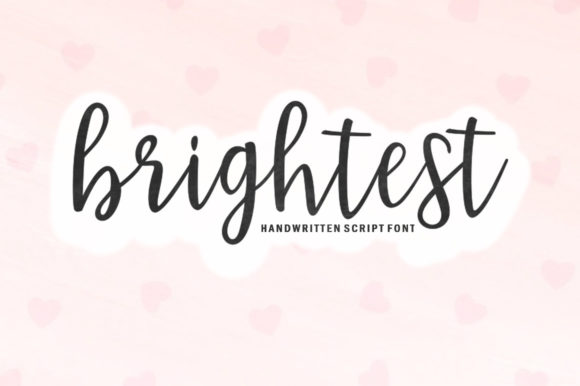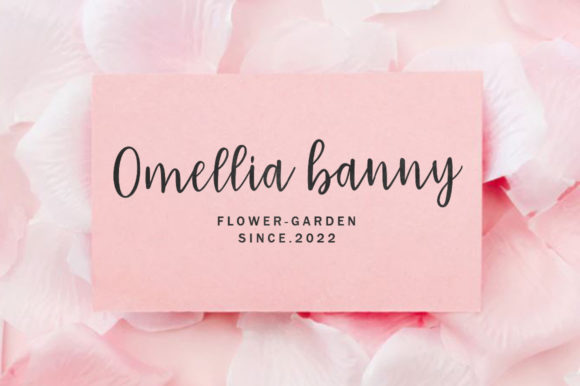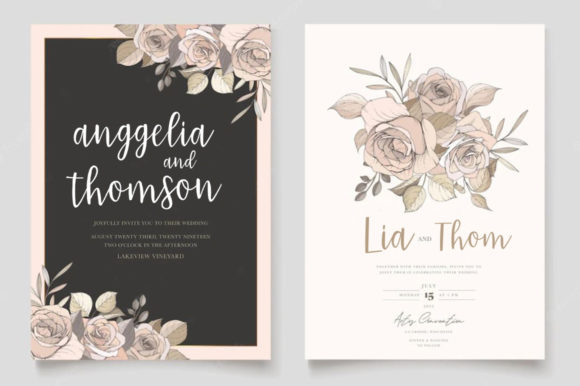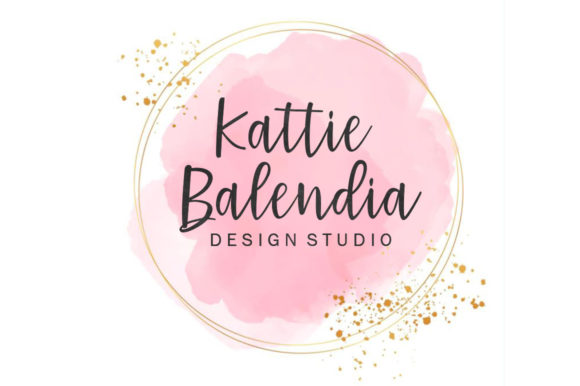
Brightest Font
About the Brightest Font
Make a bold statement with Brightest Font, a powerful and memorable font. Brightest is a sweet and delicate handwritten font. Dainty and joyful, this font will be ideal for writing wedding invitations, cards or any other design that may need a romantic, personalized touch!
Brightest’s delicate nature makes it perfect for projects requiring a touch of romantic whimsy, such as wedding stationery, branding for artisanal goods, or feminine product packaging. It excels in short text applications like headlines, short quotes, and logotypes. However, its thin strokes and inconsistent letterforms make it unsuitable for body text or UI elements where readability is paramount.
Consider pairing Brightest with a clean sans-serif like Lato for a modern contrast, or a classic serif such as Garamond for a more timeless feel. A playful script font could also work well for secondary text elements, adding another layer of personality while maintaining visual harmony.
Brightest’s overall personality is undeniably charming and friendly, projecting a sense of approachable elegance. It’s best suited to brands that value handcrafted aesthetics and a personalized touch.